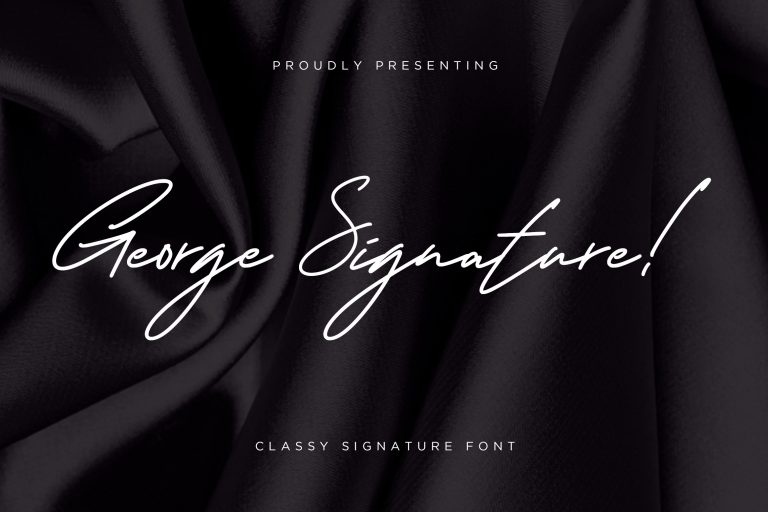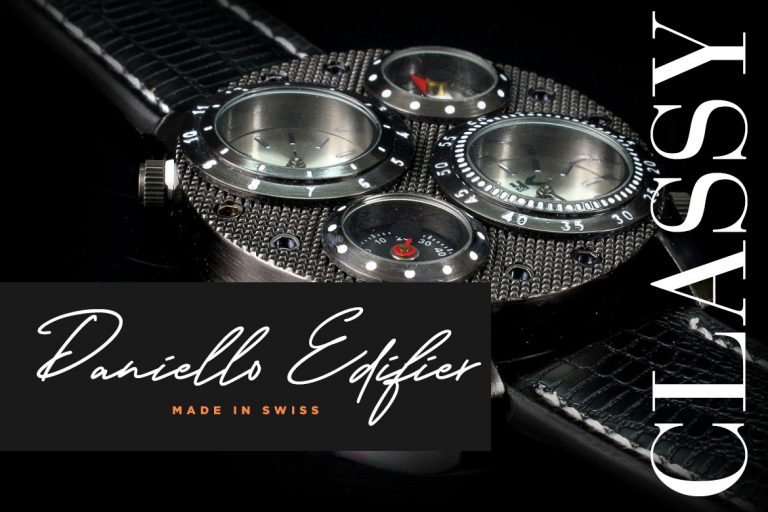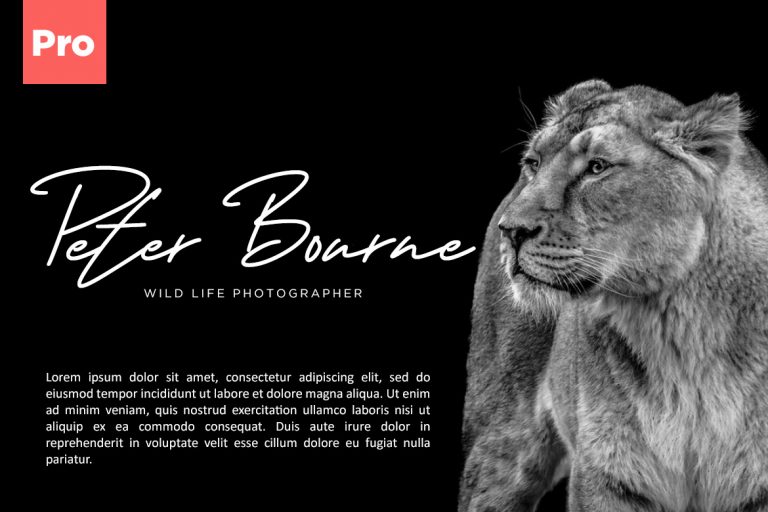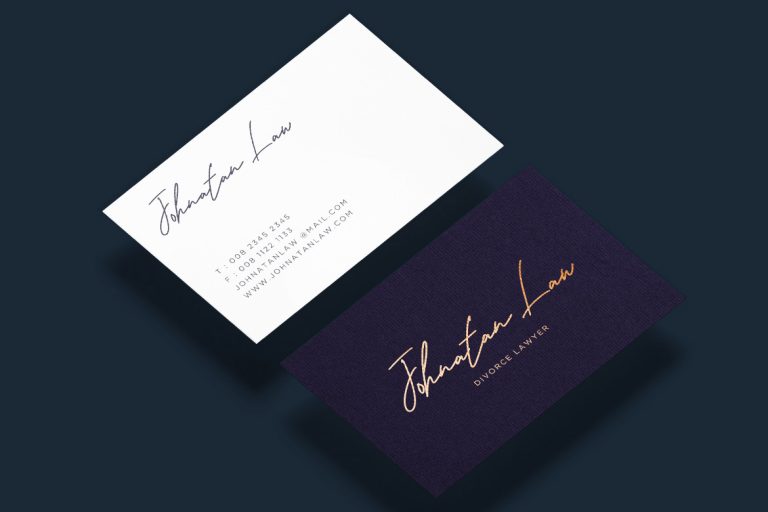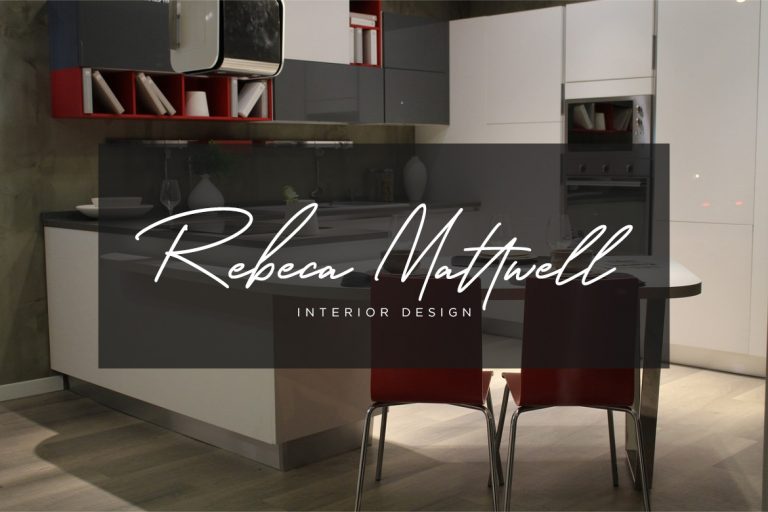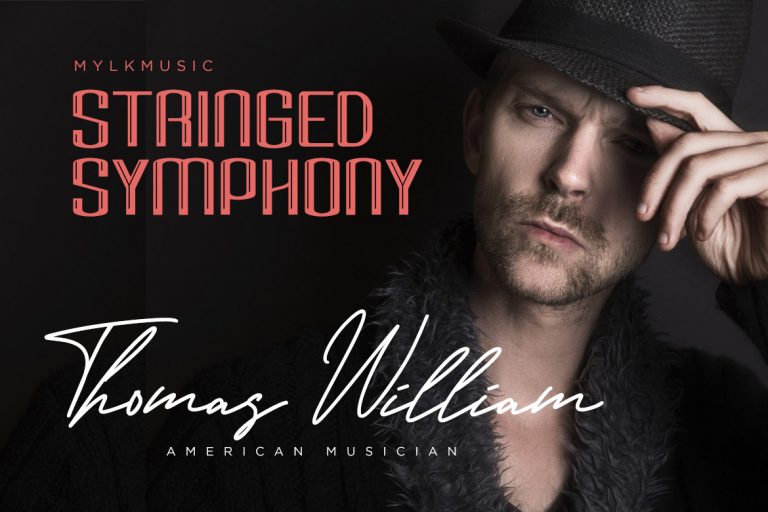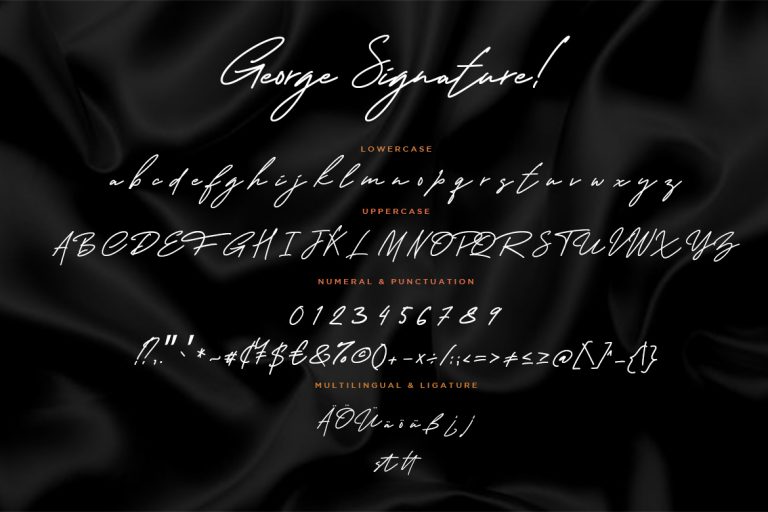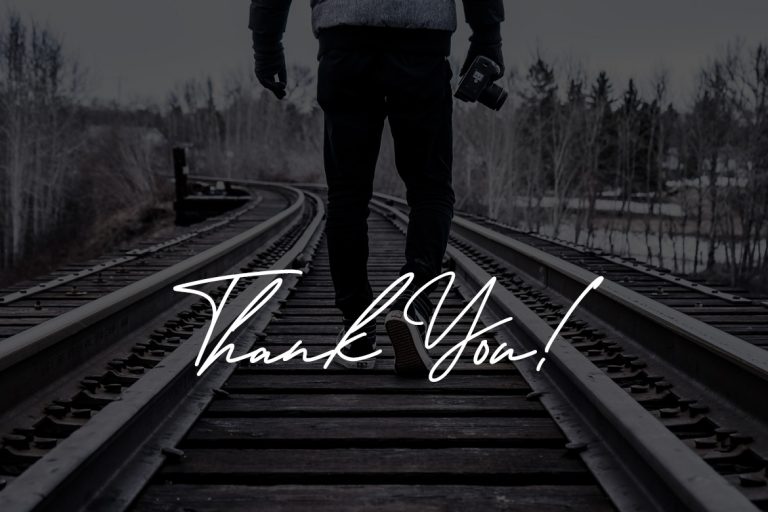
George Signature is nice and elegant signature classy font collection will make your project looks amazing.
George Signature is perfect for branding projects, logo, wedding designs, social media posts, advertisements, product packaging, product designs, label, photography, watermark, invitation, stationery and any projects that need handwriting taste.
- Standard glyphs
- Ligature
- Fonts include multilingual support for; ä ö ü Ä Ö Ü ß ¿ ¡
George Signature Classy